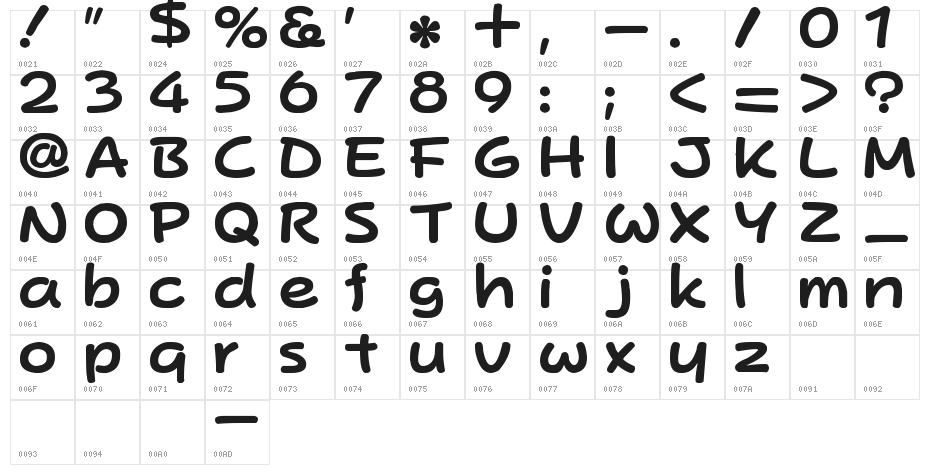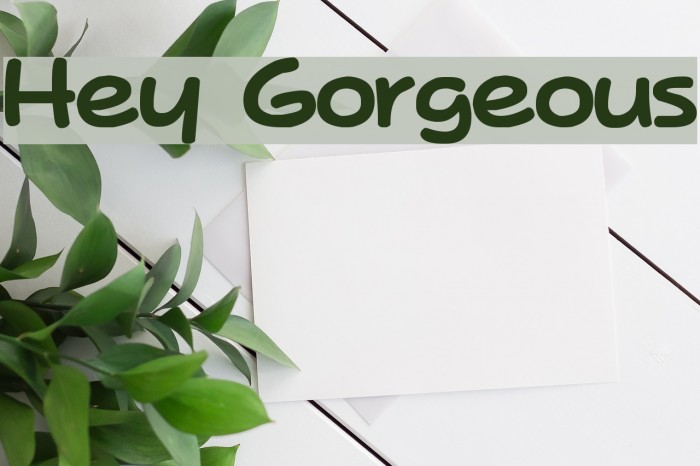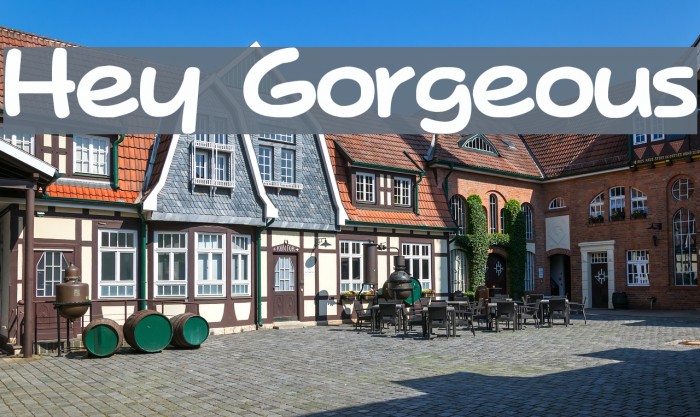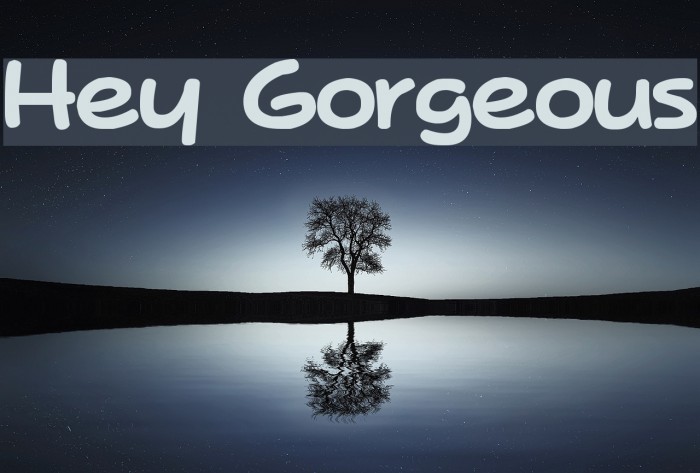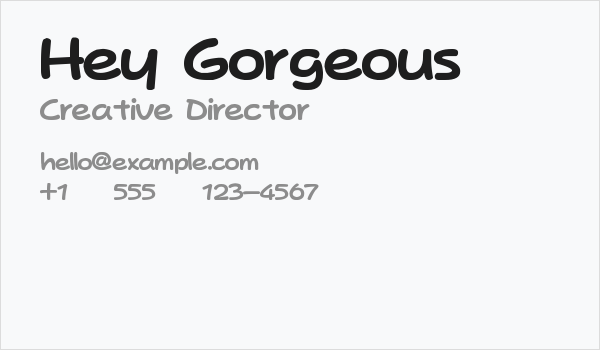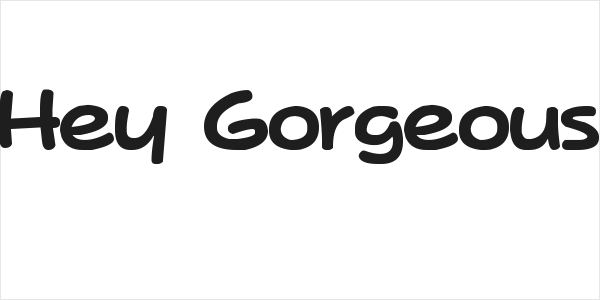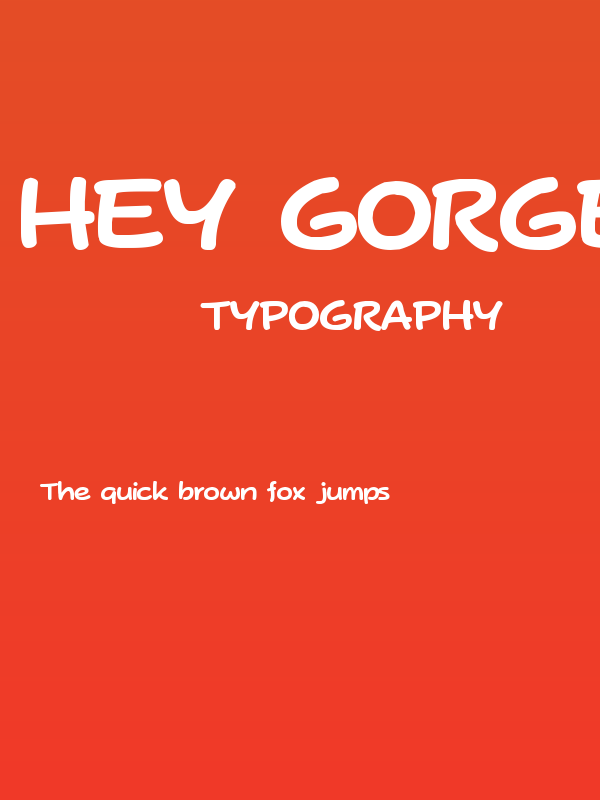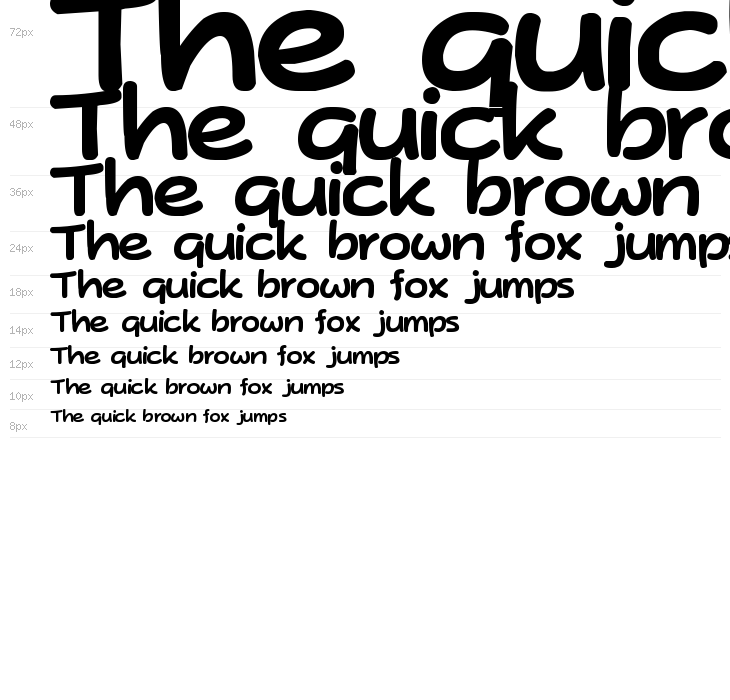
Hey Gorgeous Font
Hey Gorgeous Description
This playful and rounded font exudes a friendly and approachable vibe. The characters are bold with a consistent stroke width, giving them a strong presence on the page. The rounded edges and slightly exaggerated curves add a touch of whimsy, making it ideal for projects that require a fun and informal tone. The uppercase and lowercase letters maintain a uniform style, ensuring readability while adding a unique flair. Numbers and special characters are designed with the same playful aesthetic, making them suitable for a variety of creative applications.
| Proposed Projects | Ideal for children's books, playful branding, casual invitations, and creative posters. |